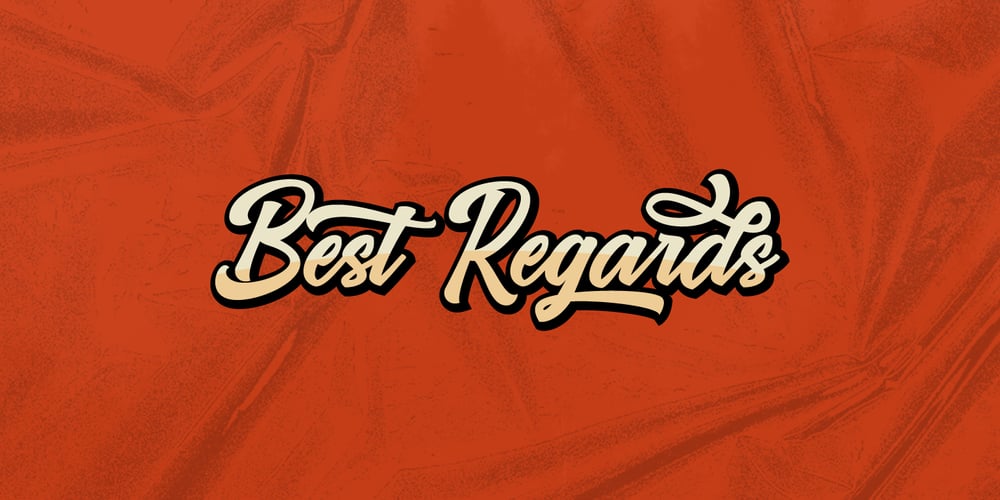
Vrindals Script Font Family was designed by Ferdiansyah and published by Pointlab. Vrindals Script contains 1 styles and family package options. Vrindals Script is inspired by a retro style and combination with hand lettering style. It is made with personality in every single curve. I hope this will inspire you and your work. It can be perfectly paired with a marker font, and contains a super handy set of bonus swashes. It is ideal for logos, handwritten quotes, product packaging, header, poster, merchandise, social media & greeting cards. PUA Encoding and multi-language support included. To enable the OpenType stylistic alternates, you need a program that supports OpenType features such as Adobe Illustrator CS, Adobe Indesign & CorelDraw X6-X7. There are additional ways to access alternates, using Character Map (Windows), Nexus Font (Windows), Font Book (Mac) or a software program such as PopChar (for Windows and Mac). If you have any question, don’t hesitate to contact me by email pointline23@gmail.com ๐